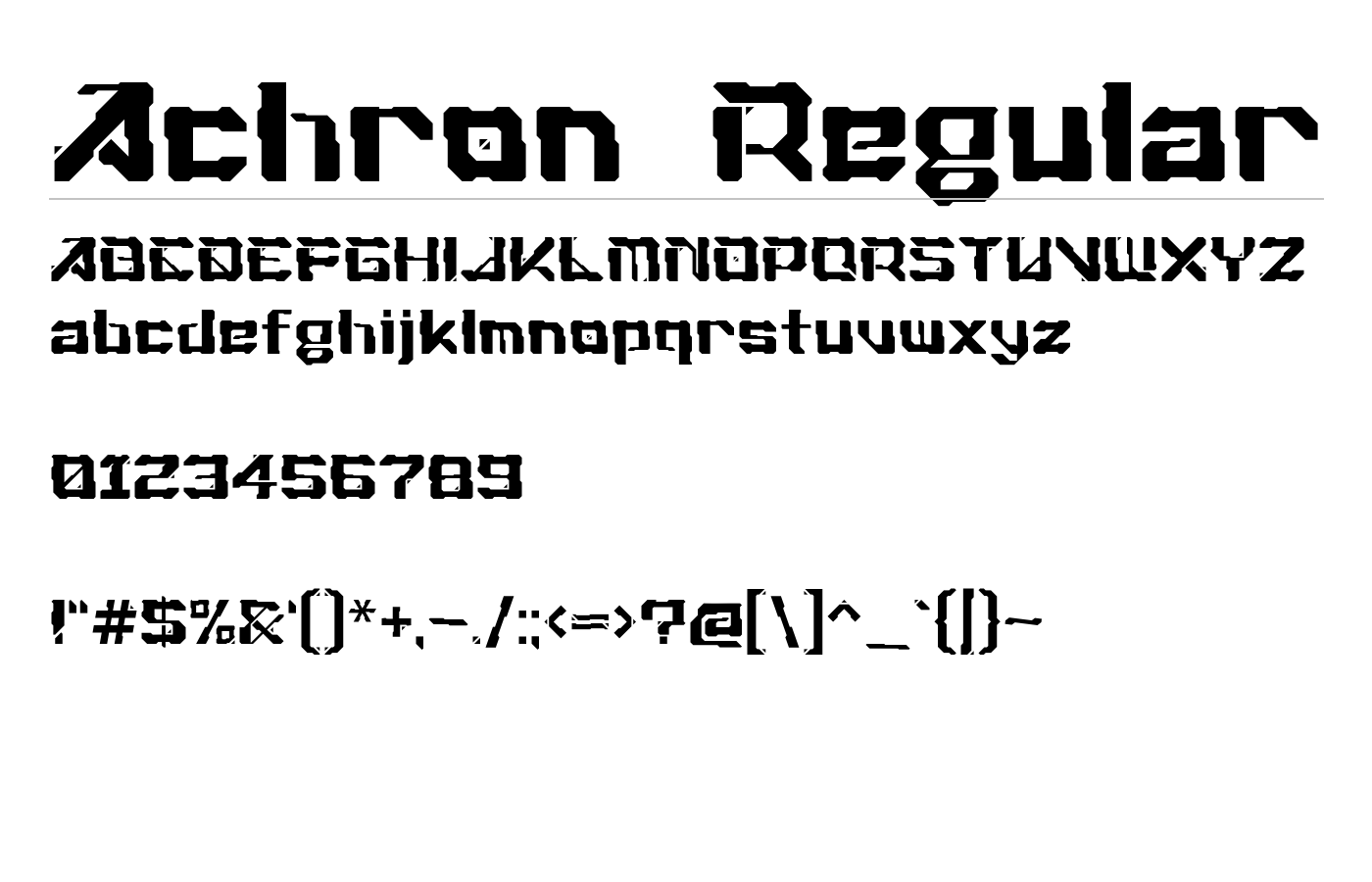
Achron Regular is a bold, geometric sans serif font with a futuristic, tech-inspired look featuring sharp, angular edges and a strong, square structure. Its high contrast and distinct, almost stencil-like letterforms make it perfect for bold headlines, logos, and designs that seek a modern, industrial, or digital vibe. This font works well in creative branding and editorial projects where a striking, unconventional style is desired.
Achron Regular Font